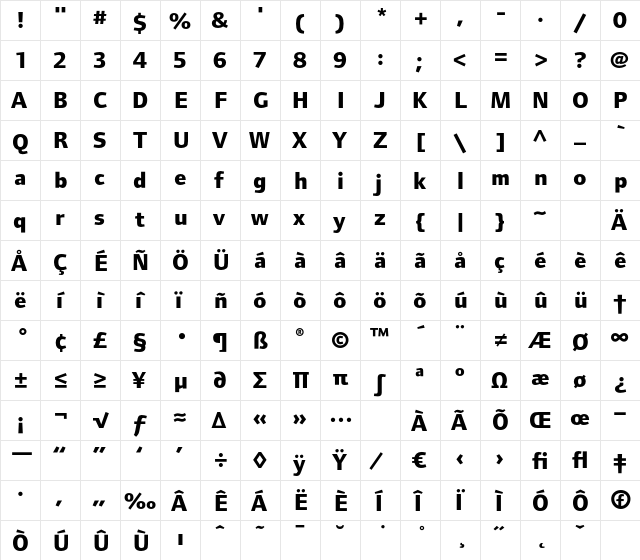
FoundryFormSans ExtraBold Font Preview
FoundryFormSans ExtraBold
Design Context for FoundryFormSans Typeface
FoundryFormSans is a composed and adaptable typeface that performs quietly and consistently across a wide range of design contexts. Its bold stroke weight gives it real presence on the page.